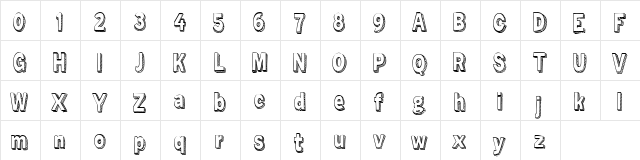
Zuka Doodle Font Preview
Zuka Doodle Zuka Doodle
Zuka Doodle Font Details
| Foundry | Cundrawan (cove703) |
| Designer | Cundrawan (cove703) |
Design Context for Zuka Doodle Typeface
Zuka Doodle is a composed and adaptable typeface that performs quietly and consistently across a wide range of design contexts.